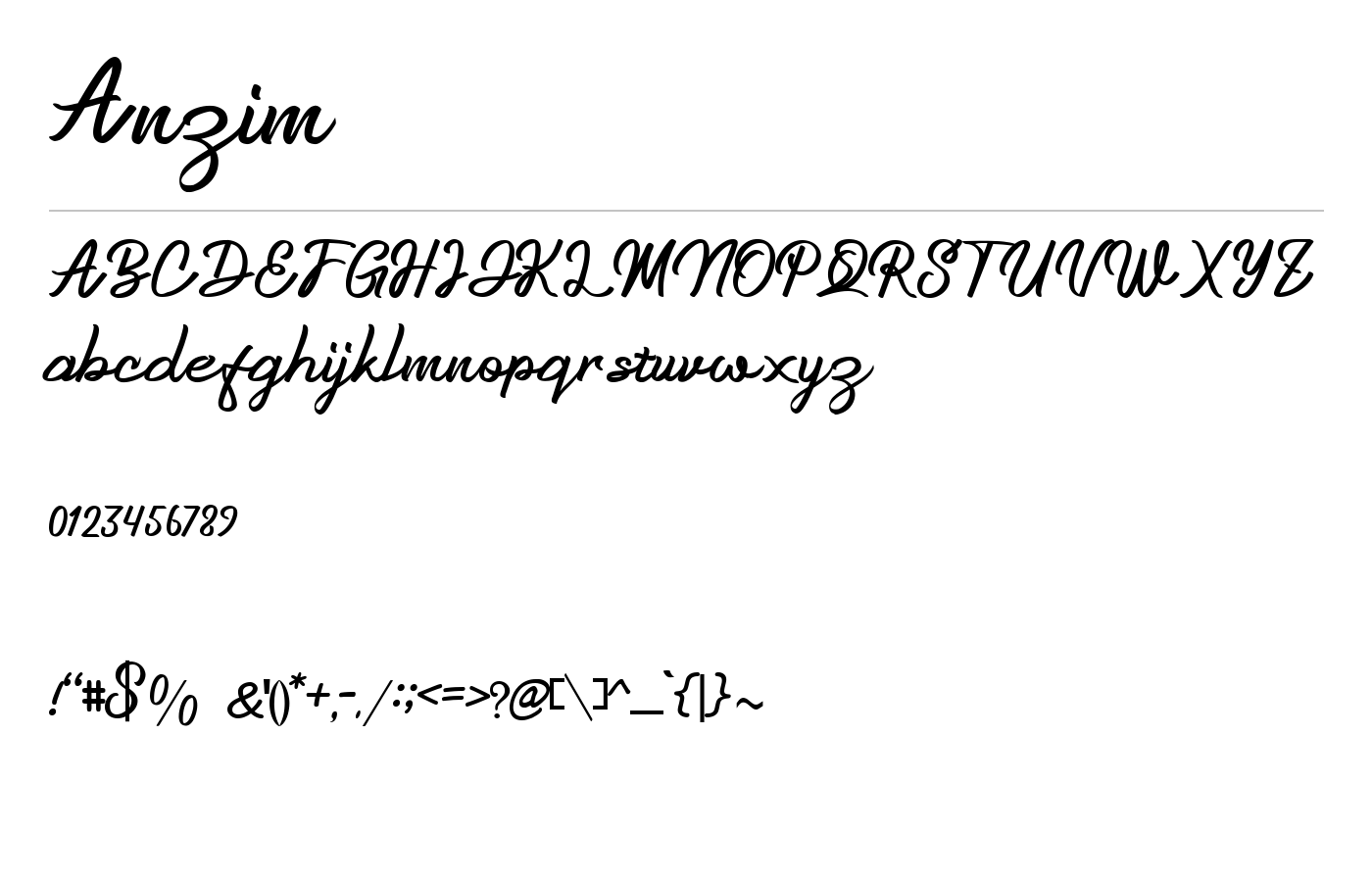
Anzim is a graceful script font with smooth, flowing strokes that evoke a handwritten feel. It features a slightly condensed width and consistent medium weight, making it elegant yet readable for both uppercase and lowercase letters. This font works beautifully for invitations, branding, and stylish headlines where a personal and sophisticated touch is desired.
Anzim Font
About Anzim Font